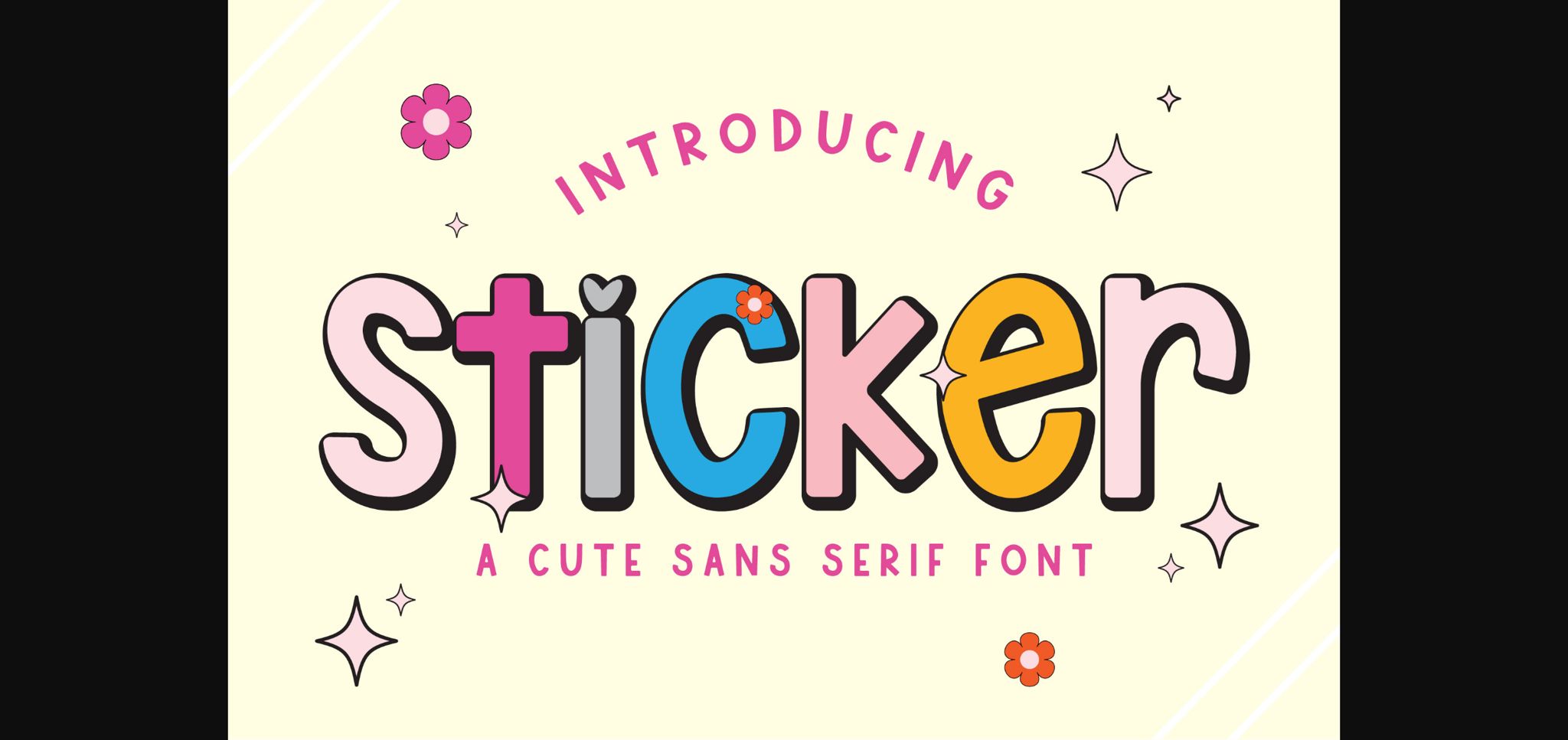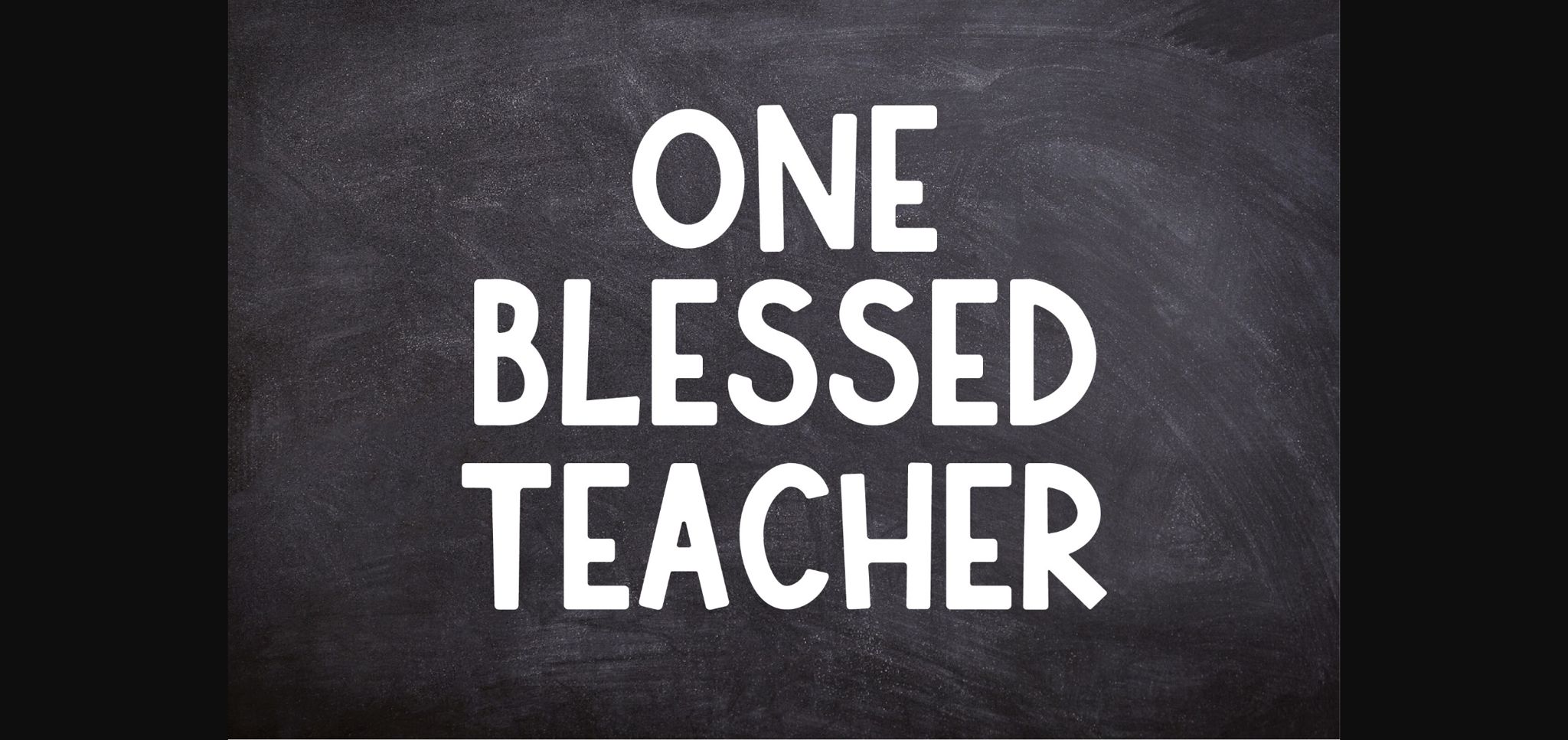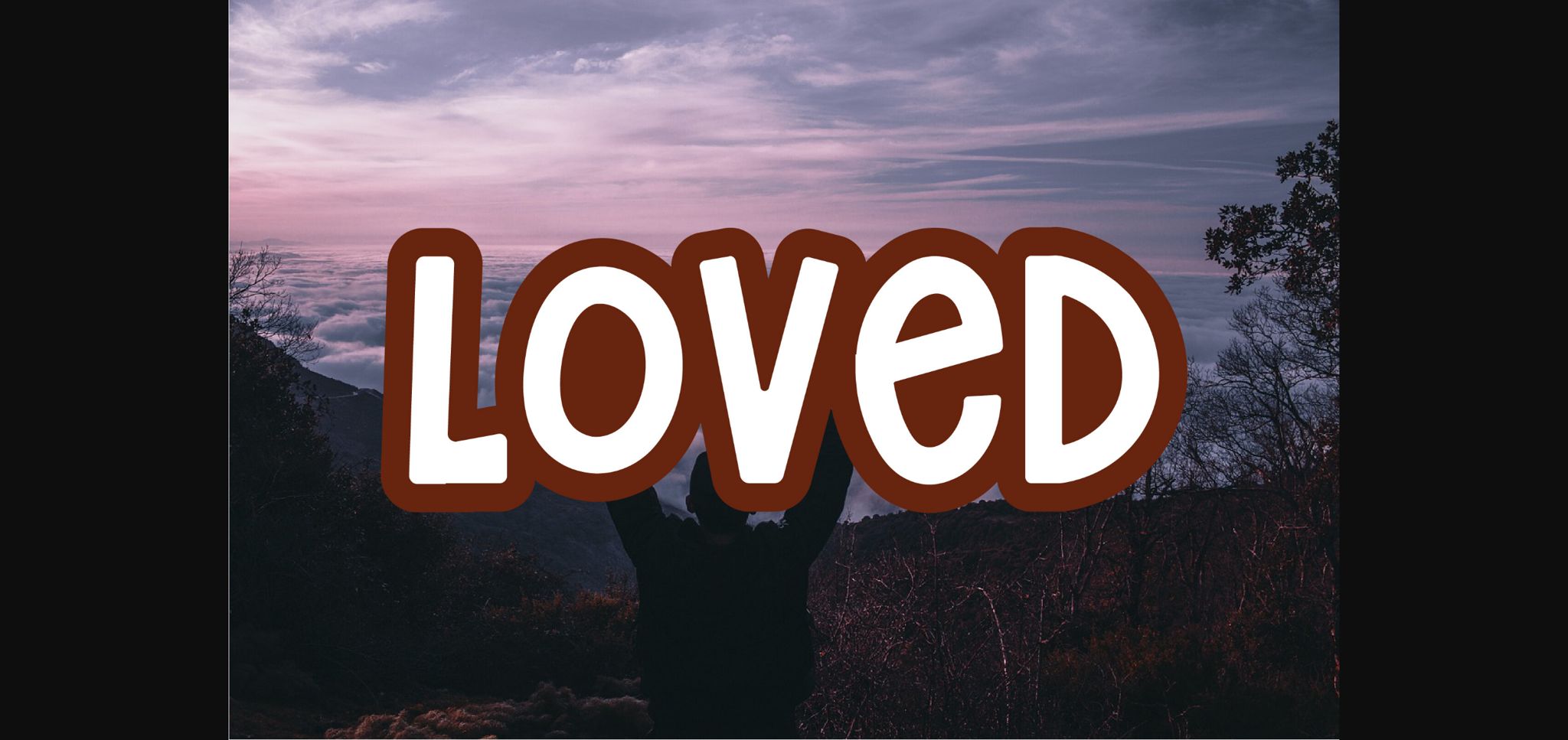
About Sticker Font
Sticker is a fun and cute handmade font. It`s very perfect for your project. Using sticker font and capital letters in the design will get good results. Sticker is funny sans serif font, such as birthday invitations, summer designs, holidays, T-shirt Design, sublimation, Baby Craft, crafting, stickers, mugs engaging social media content, and more.